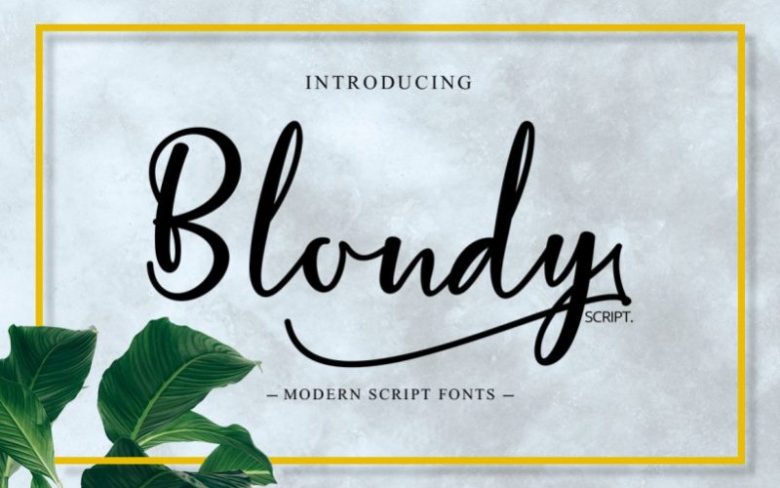
Blondy Calligraphy Font
Blondy Script a new fresh & modern script with a handmade calligraphy style, decorative characters and a dancing baseline! So beautiful on invitation like greeting cards, branding materials, business cards, quotes, posters, and more!!